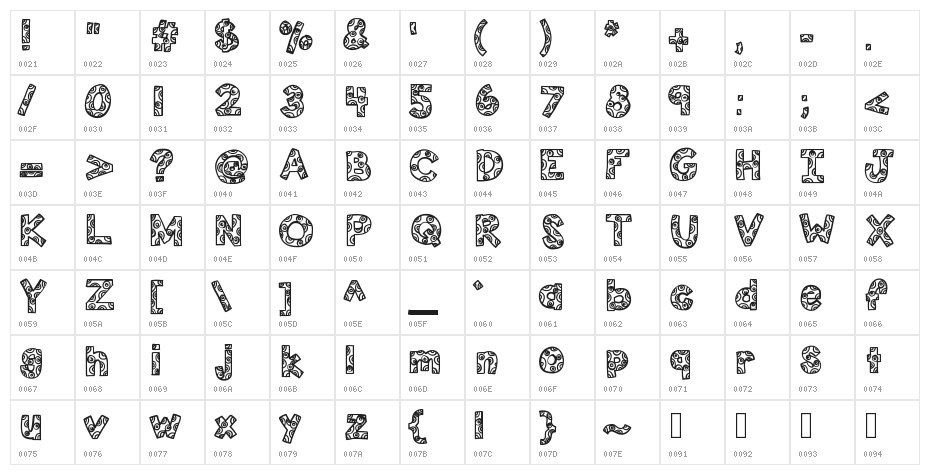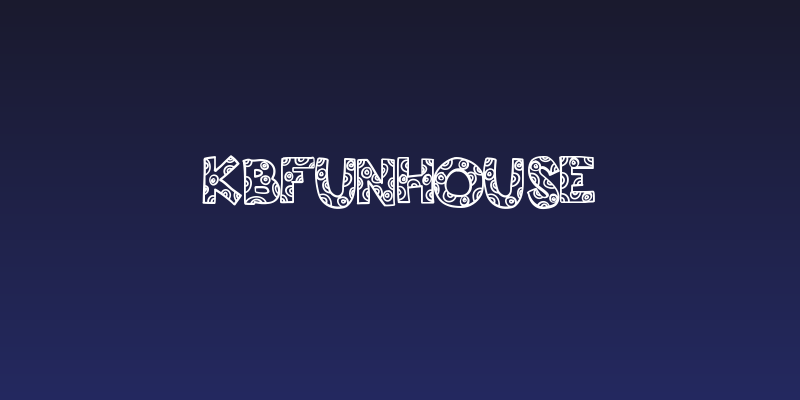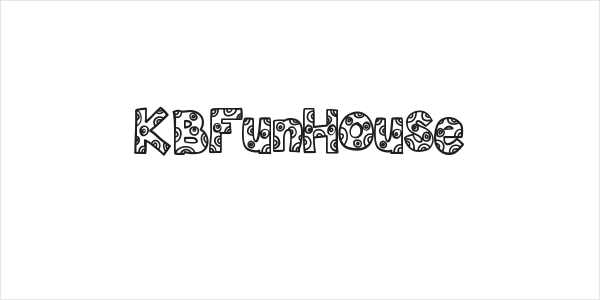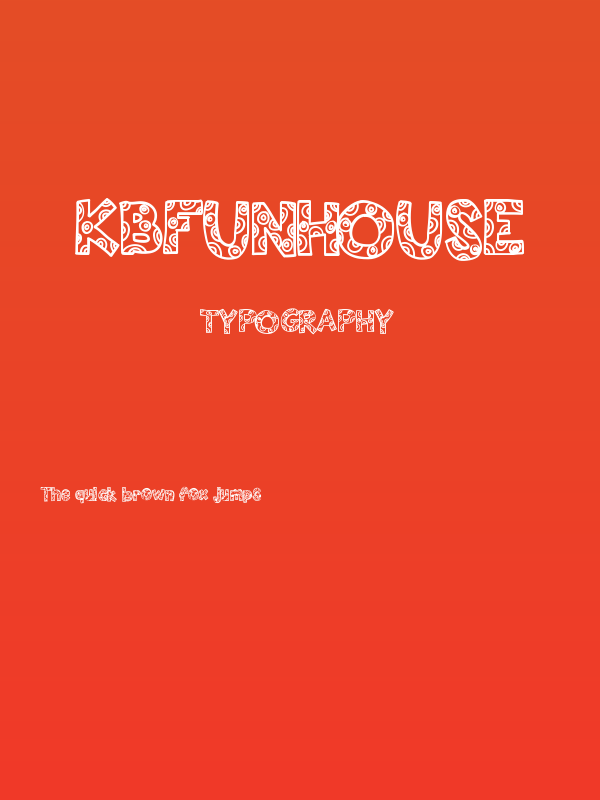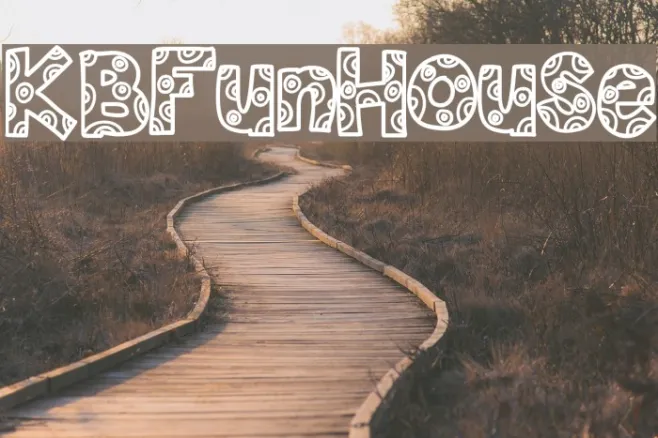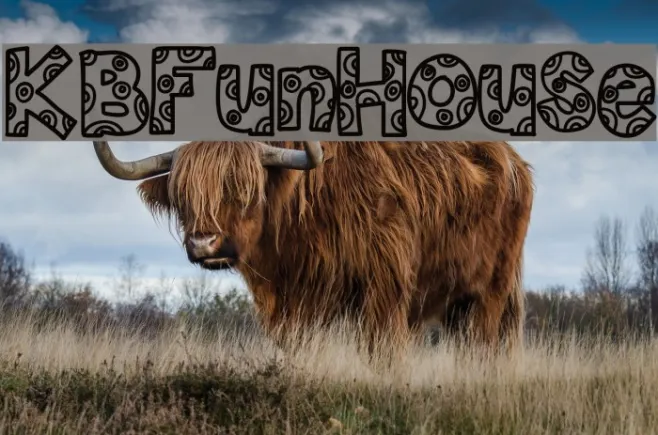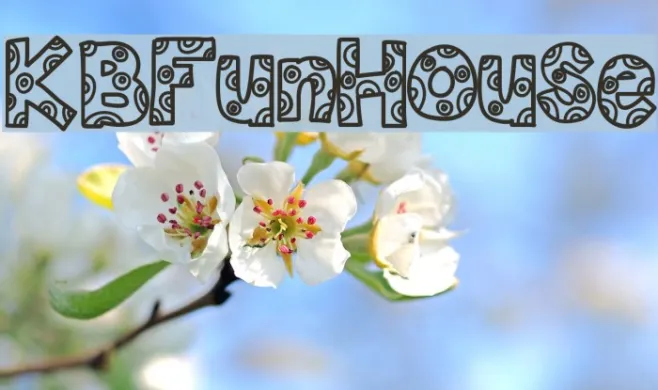
KBFunHouse Font
KBFunHouse Description
This playful and whimsical font features bold, uppercase and lowercase letters filled with intricate, swirling patterns. The characters are outlined with a thick, solid border that enhances their visibility and adds a touch of fun. The numbers and special characters maintain the same lively design, making the font consistent across all elements. Its decorative style is eye-catching and perfect for projects that require a sense of creativity and joy. The font's unique design makes it stand out, ensuring that any text using it will capture attention.